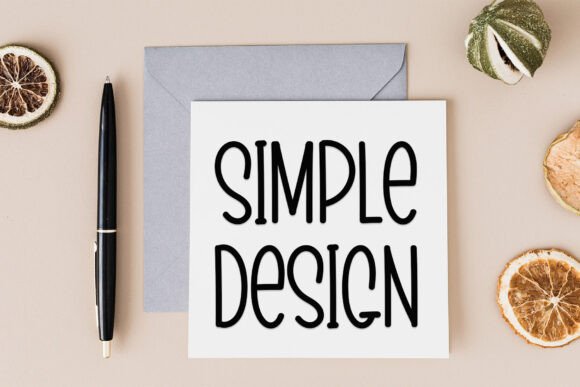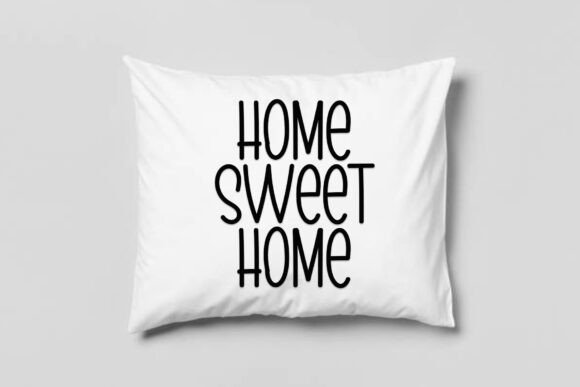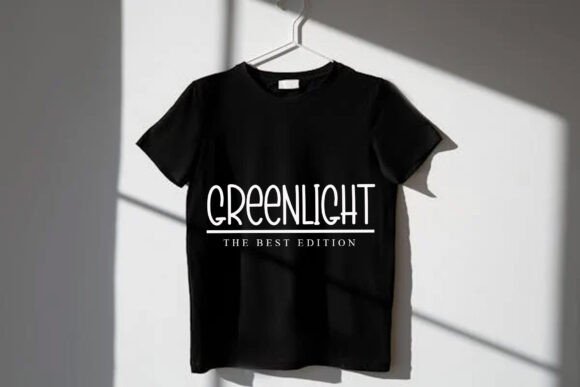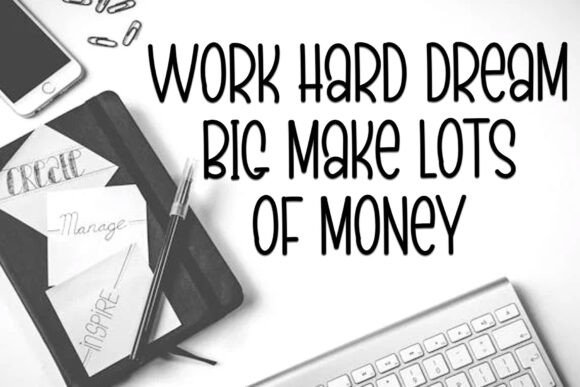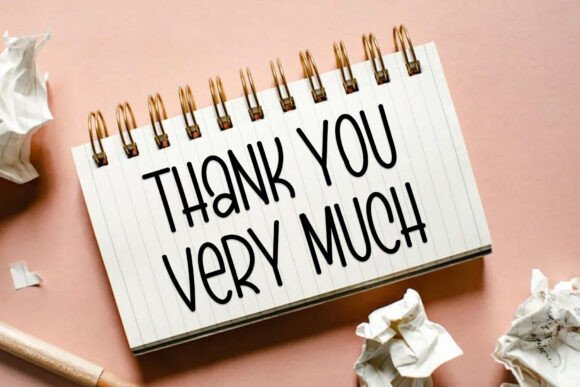
Introducing Happy Birthday Font: The Perfect Choice for Designers and Crafters
Are you looking for a font that can add a touch of elegance and sophistication to your designs? Look no further than the Happy Birthday font! This lovely and timeless handwritten font is perfect for creating eye-catching logos, branding, and quotes that will leave a lasting impression on your audience.
What Makes Happy Birthday Font So Special?
The Happy Birthday font is a unique and beautiful handwritten font that is sure to make your designs come alive. Every letter has a distinctive and elegant touch that sets it apart from other fonts. The font is perfect for designers and crafters who want to add a personal touch to their work. Whether you’re creating a logo, branding materials, or quotes, the Happy Birthday font is the perfect choice.
Key Features of Happy Birthday Font
- Unique and Beautiful Touch: Every letter in the Happy Birthday font has a unique and beautiful touch that will make your designs stand out.
- Handwritten Style: The font has a lovely handwritten style that adds a personal touch to your designs.
- Elegant and Sophisticated: The font is elegant and sophisticated, making it perfect for creating high-end designs.
- Eye-Catching: The Happy Birthday font is perfect for creating eye-catching logos, branding, and quotes that will grab the attention of your audience.
- Versatile: The font is versatile and can be used for a variety of design projects, from logos and branding to quotes and more.
Why Designers and Crafters Love Happy Birthday Font
Designers and crafters love the Happy Birthday font for many reasons. Here are a few:
- Easy to Read: The font is easy to read, making it perfect for creating designs that need to be read and understood quickly.
- Customizable: The font is customizable, allowing you to adjust the size, color, and style to fit your design needs.
- Time-Saving: The Happy Birthday font is a time-saving solution for designers and crafters who need to create high-quality designs quickly.
- Unique Designs: The font allows designers and crafters to create unique and original designs that stand out from the crowd.
How to Use Happy Birthday Font in Your Designs
Using the Happy Birthday font in your designs is easy. Here are a few tips:
- Choose the Right Size: Choose a size that fits your design needs. You can adjust the size to fit your logo, branding, or quote.
- Select a Color: Select a color that matches your brand or design theme. You can choose from a variety of colors or create a custom color.
- Experiment with Styles: Experiment with different styles, such as bold, italic, or underline, to add emphasis to your design.
- Combine with Other Fonts: Combine the Happy Birthday font with other fonts to create a unique and interesting design.
The Happy Birthday font is a lovely and timeless handwritten font that is perfect for designers and crafters. With its unique and beautiful touch, elegant and sophisticated style, and versatility, it’s the perfect choice for creating eye-catching logos, branding, and quotes. Whether you’re a professional designer or a crafter, the Happy Birthday font is a must-have in your font collection.